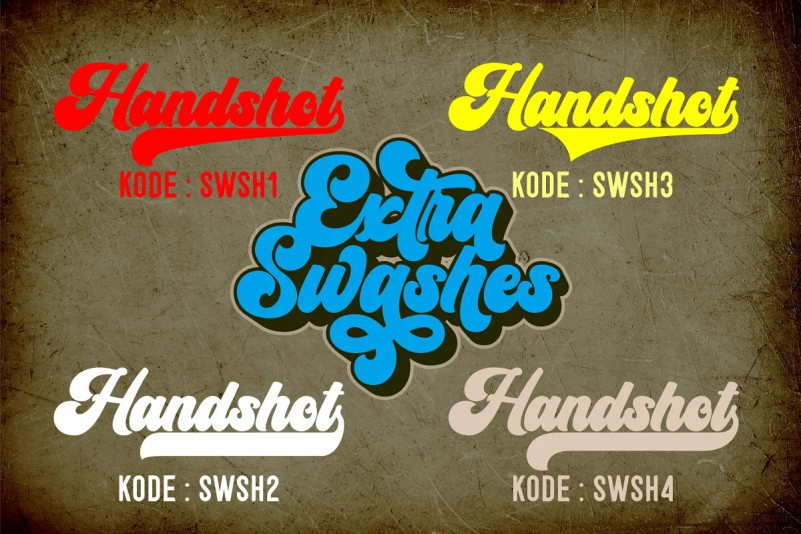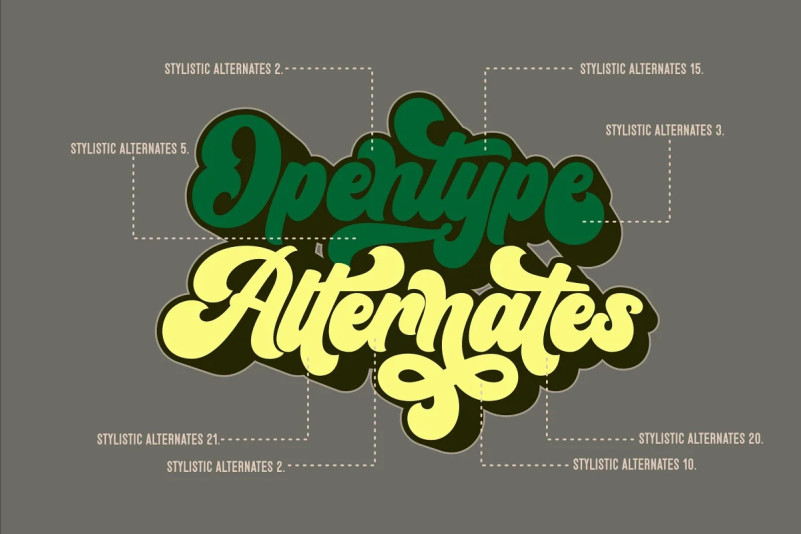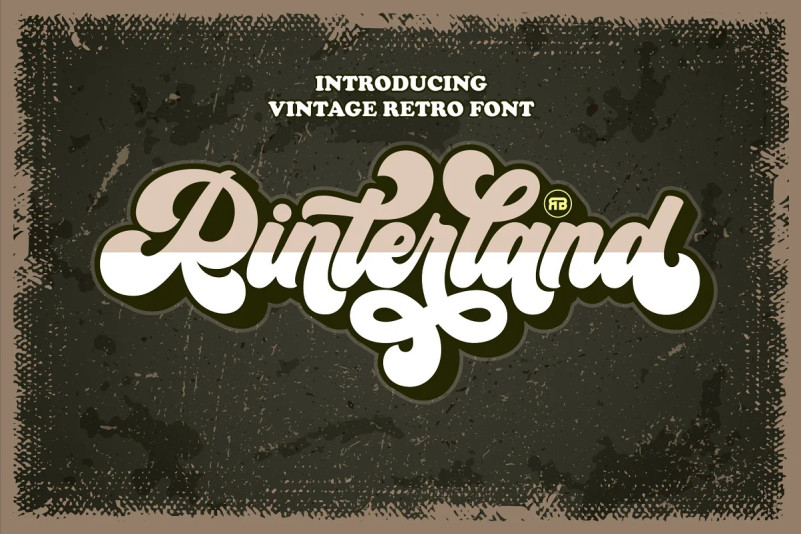
Rinterland Font
Rinterland Font is a Vintage retro font. Inspired from retro typography and lettering in the 70’s and 80’s combine with bold typography style. This font perfect for vintage and retro design, badge, logos,t-shirt, poster, branding, packaging, signage, book coverand so much more!
Rinterland with almost 500 glyphs inside the font, you can also create many of other typography designs. Stylistic Alternates, Swashes, Contectual Alternate and Ligatures is a list of features from OpenType which you can use to pairing the letters each other powerfully.